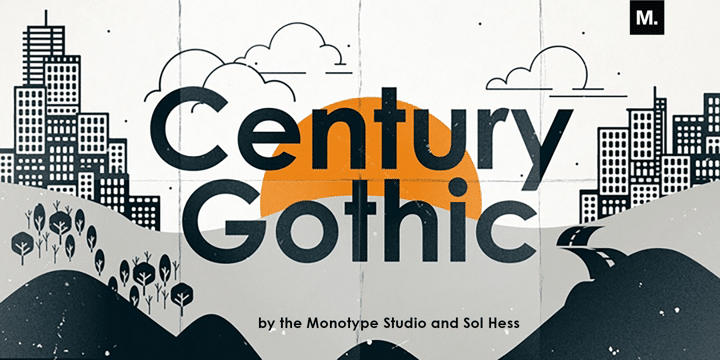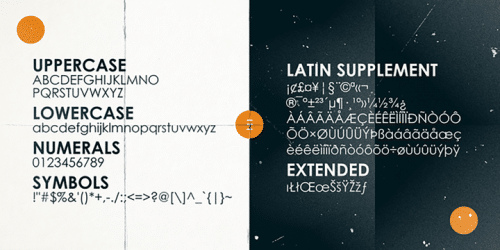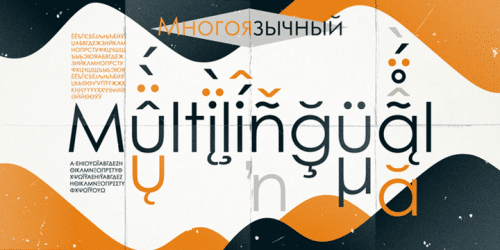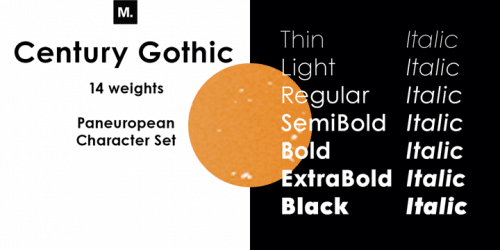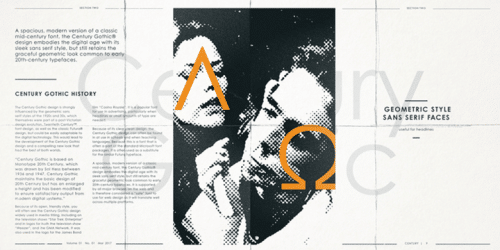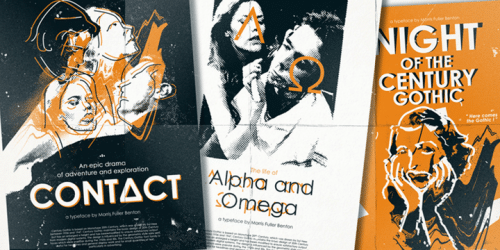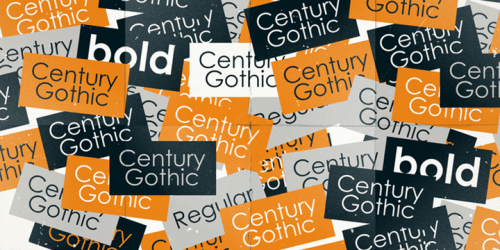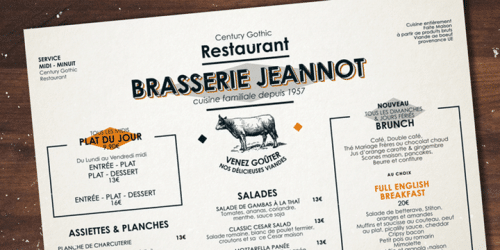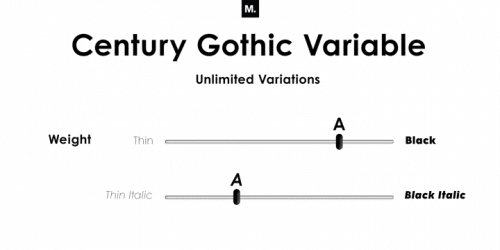
Century Gothic™ is based on Monotype 20th Century, which was drawn by Sol Hess between 1936 and 1947. Century Gothic maintains the basic design of 20th Century but has an enlarged x-height and has been modified to ensure satisfactory output from modern digital systems. The design is influenced by the geometric style sans serif faces which were popular during the 1920s and 30s. The Century Gothic font family is useful for headlines and general display work and for small quantities of text, particularly in advertising.
The Century Gothic family has been extended to 14 weights in a Pan-European character set from Thin to Black and their Italics.
The already existing 4 weights of Regular and Bold with their Italics are additionally still available in the STD character set.
The W1G versions featuring a Pan-European character set for international communications supports almost all the popular languages/writing systems in western, eastern, and central Europe based on the Latin alphabet including several based on Cyrillic and Greek alphabets.